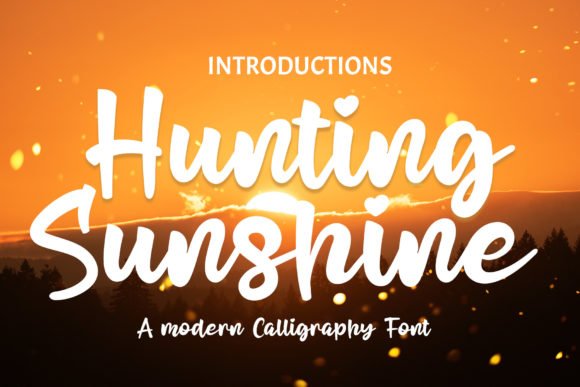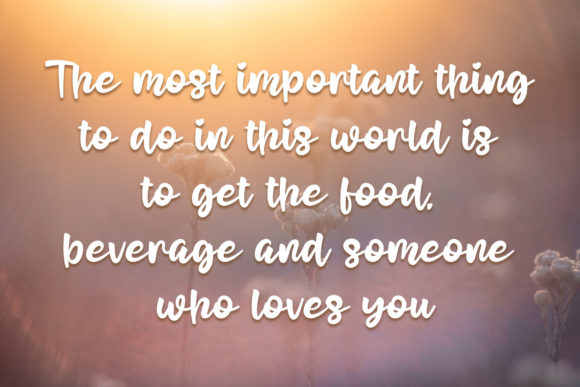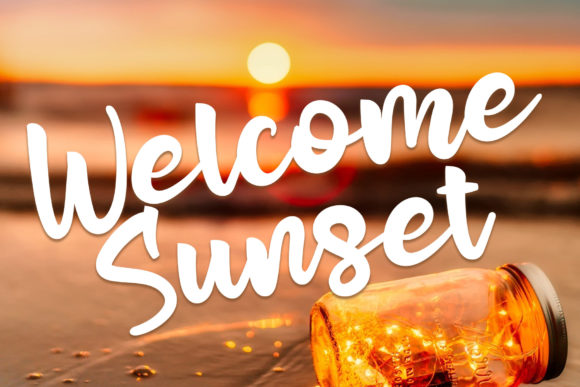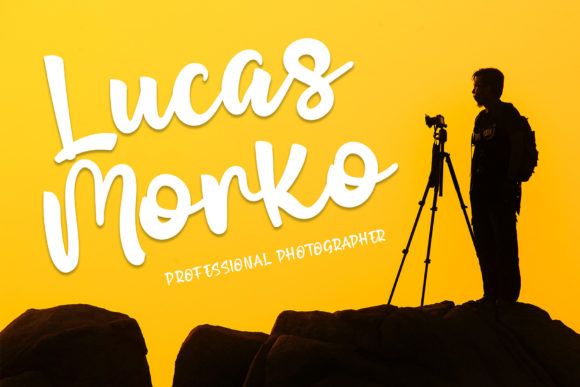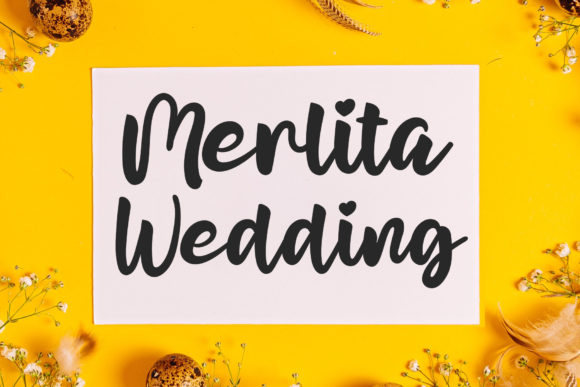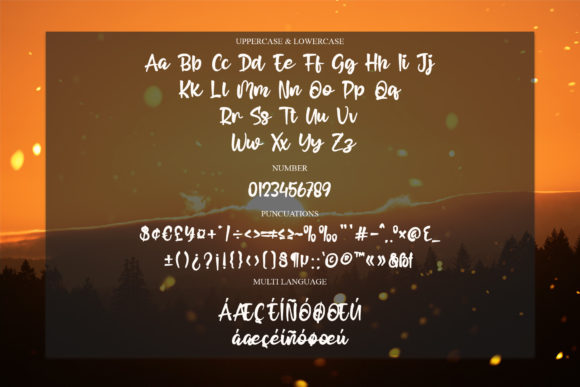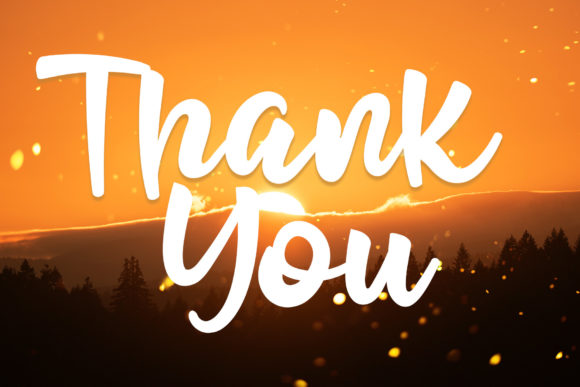
The Perfect Catch for Your Creative Projects
As a designer, you’ve likely spent hours pouring over sketches and ideas, trying to find the perfect combination of style and substance. And then, it hits you – a spark of inspiration that sets your creativity ablaze. For me, that moment often comes when I’m experimenting with new fonts and textures. The right typography can elevate an entire design, and I’m excited to share with you one of my latest discoveries: the elegant Hunting Sunshine Font.
With its contemporary atmosphere and impeccable form, Hunting Sunshine Font is the perfect addition to any design project. Inspired by timeless classic calligraphy, this font is designed to enhance the beauty of your work without overpowering it. Whether you’re working on a branding project, a wedding invitation, or a personal blog, Hunting Sunshine Font is sure to catch your eye.
Hunting Sunshine Font Key Features
- Font Family: Hunting Sunshine
- Unique Characteristics: Features a unique, hand-drawn design with a warm and sunny feel, perfect for creating a cheerful and optimistic atmosphere
Hunting Sunshine Font Review
Overall, I think the Hunting Sunshine Font is a sweet and charming font. It has a playful, whimsical feel that can add a lot of personality to your design.
- The font has a unique, hand-drawn feel that can add a lot of character to your design.
- The curves and flourishes in the font are well-executed and add a lot of visual interest.
- The font is highly customizable, with a wide range of styles and weights available.
- The font may be difficult to read at small sizes, due to the complexity of the letterforms.
- The font may not be suitable for formal or professional applications, due to its playful and whimsical feel.
- The font may require additional styling or formatting to make it work well in certain contexts.
Overall, I think the Hunting Sunshine Font is a great choice for designers who want to add a little personality and whimsy to their projects. While it may have some limitations, it’s a versatile and highly customizable font that can add a lot of visual interest to your designs.
For the best results, use the Hunting Sunshine Font in conjunction with bright and airy colors. Avoid using it with dark or bold colors, as it may get lost in the design.
The Hunting Sunshine Font is perfect for:
- Summer-themed designs
- Outdoor and nature-inspired designs
Alternatives to Hunting Sunshine Font
Great Vibes Font is a modern, elegant script font suitable for various design projects, including wedding invitations, greeting cards, and quotes. It’s a great choice for designers who want to convey a sense of happiness and optimism.
Compared to Hunting Sunshine Font, Great Vibes Font has a more refined and sophisticated feel, making it ideal for high-end designs. However, it lacks the playful, handwritten feel of Hunting Sunshine Font.
Alex Brush Font is a beautiful, elegant script font with a touch of whimsy. It’s perfect for designers who want to create a sense of sophistication and romance in their designs.
Compared to Hunting Sunshine Font, Alex Brush Font has a more refined and polished feel, making it suitable for designs that require a touch of elegance. However, it lacks the playful, carefree feel of Hunting Sunshine Font.
Carolyna Pro Font is a modern, elegant script font with a touch of sophistication. It’s perfect for designers who want to create a sense of luxury and elegance in their designs.
Compared to Hunting Sunshine Font, Carolyna Pro Font has a more refined and polished feel, making it suitable for high-end designs. However, it lacks the playful, handwritten feel of Hunting Sunshine Font.